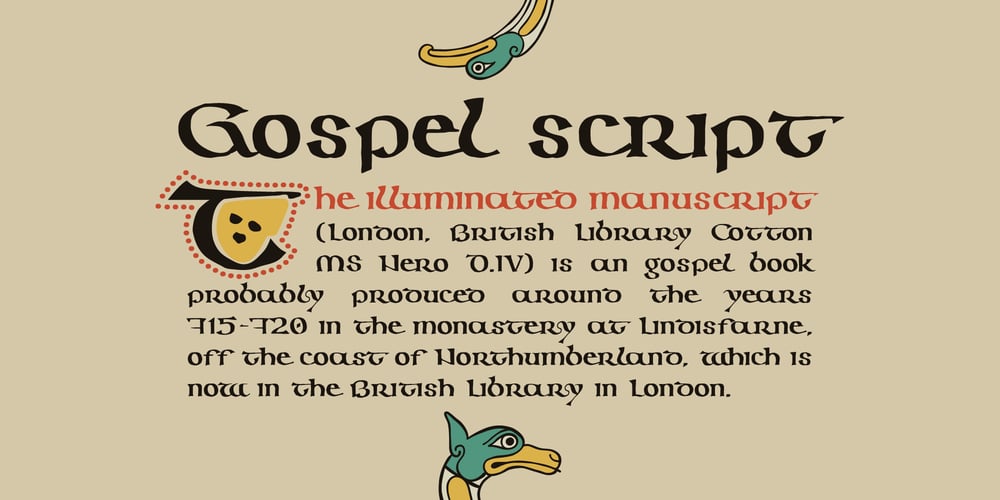
Gospel Script
Gospel Script font
Gospel Script Font Family was designed by Roman Korolev and published by Kaer. Gospel Script contains 2 styles and family package options. This time I touched another classic manuscript for my font. The Lindisfarne Gospels is an illuminated manuscript probably produced around the years 715–720 in the monastery at Lindisfarne, off the coast of Northumberland. It’s the work of a monk named Eadfrith. He was a highly trained calligrapher, and he used insular majuscule script in the manuscript.I’m happy to present you the Regular and Colored styles for your design.—You can use color fonts in PS CC 2017+, AI CC 2018+, ID CC 2019+, macOS 10.14 Mojave+ Please note that the Canva & Corel & Affinity doesn’t support color fonts!—You’ll get:* Initials & Regular styles* Uppercase and lowercase* Multilingual support* Numbers* Symbols* Punctuation* LigaturesPlease feel free to request any help you need: kaer.pro@gmail.comThank you!